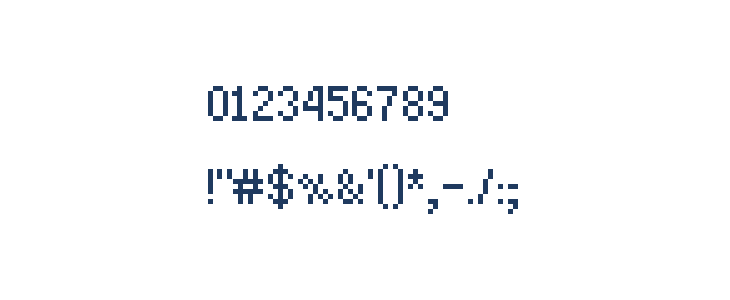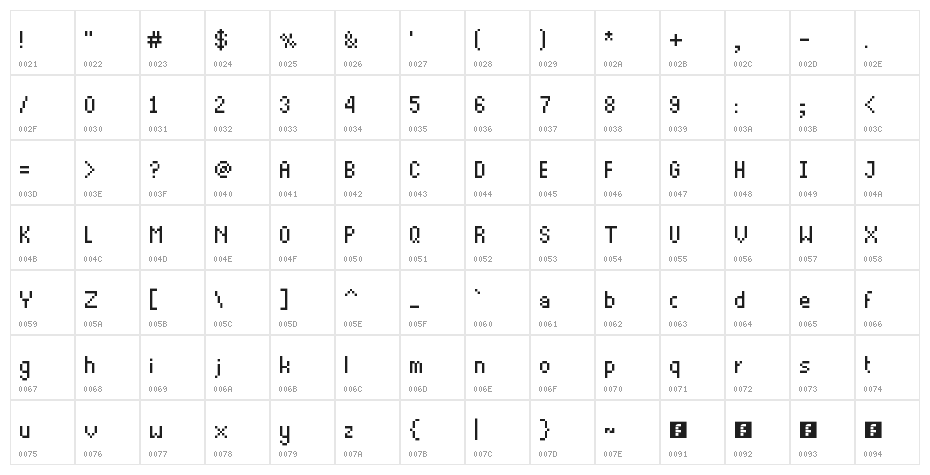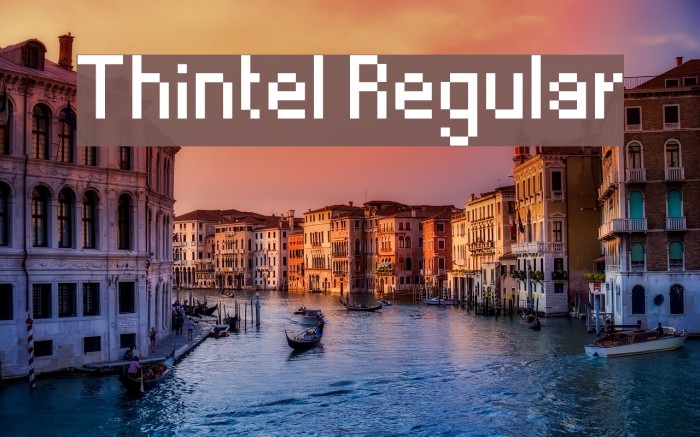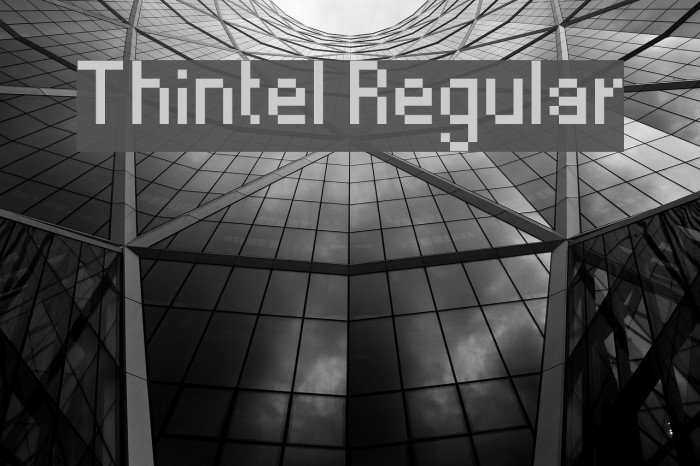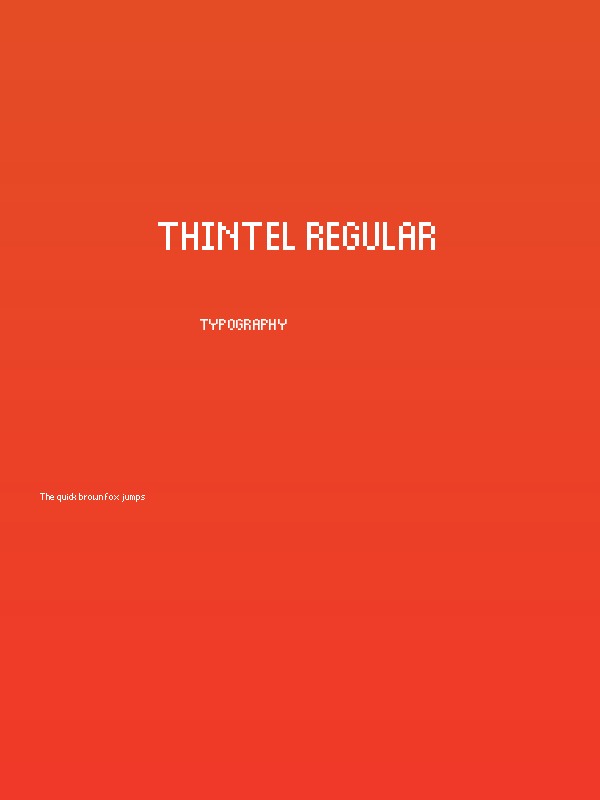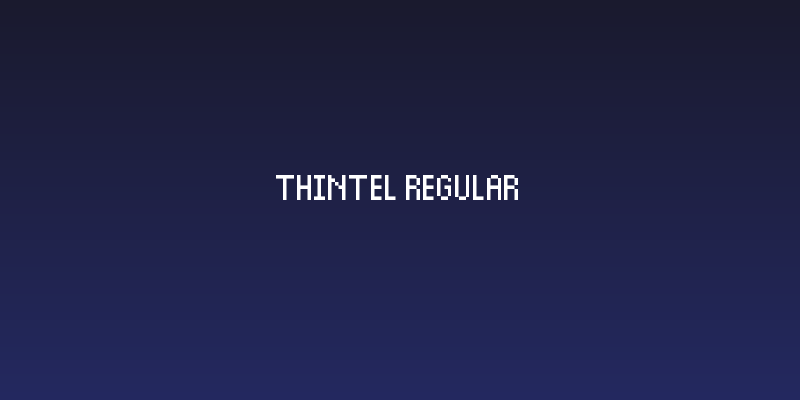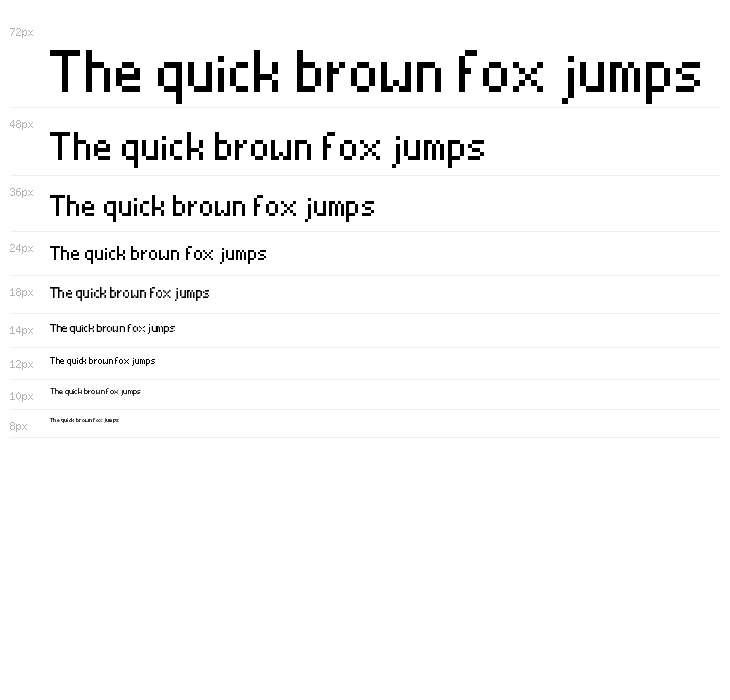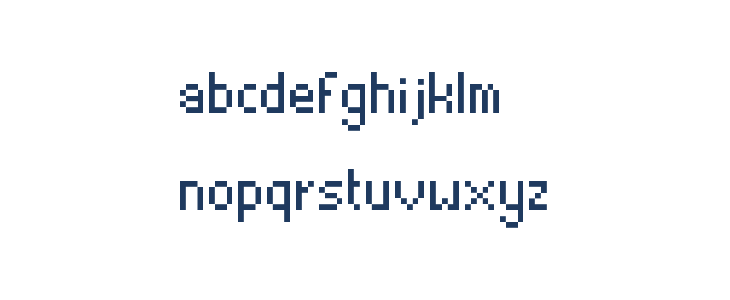
Thintel Regular Font
Thintel Regular Description
This font features a pixelated, blocky design reminiscent of early digital displays and retro video games. Each character is composed of small, square pixels, giving it a distinctly digital and geometric appearance. The uppercase and lowercase letters maintain a consistent height and width, contributing to a uniform and structured look. Numbers and special characters follow the same pixelated style, ensuring a cohesive visual experience. The font's simplicity and clarity make it highly legible, even at smaller sizes, while its nostalgic aesthetic evokes a sense of vintage computing.
| Overall Style | Vintage |
| Use Case | Logos, Headlines, Digital Art |
| Proposed Projects | Ideal for retro-themed designs, video game graphics, digital art projects, and tech-related branding. |